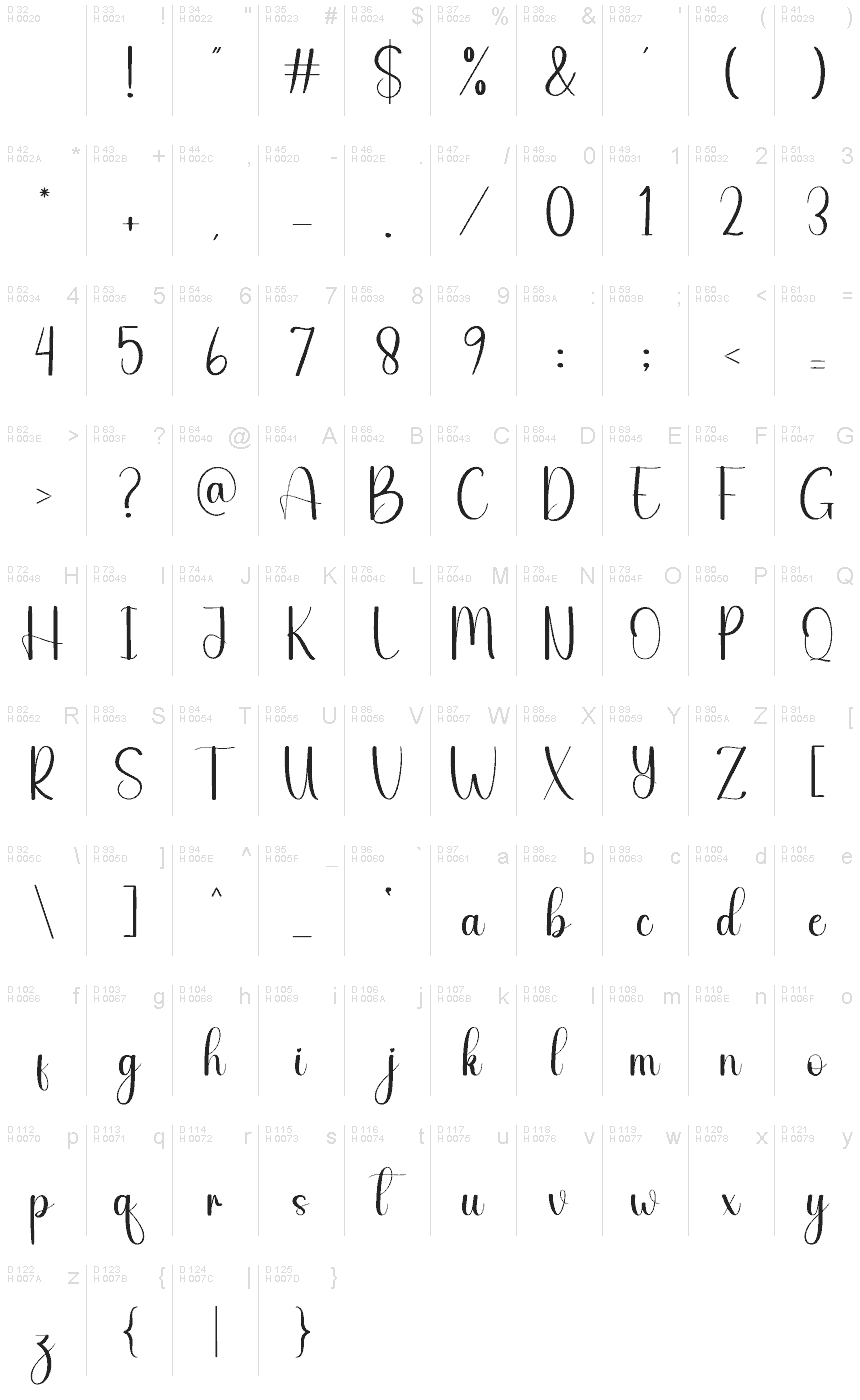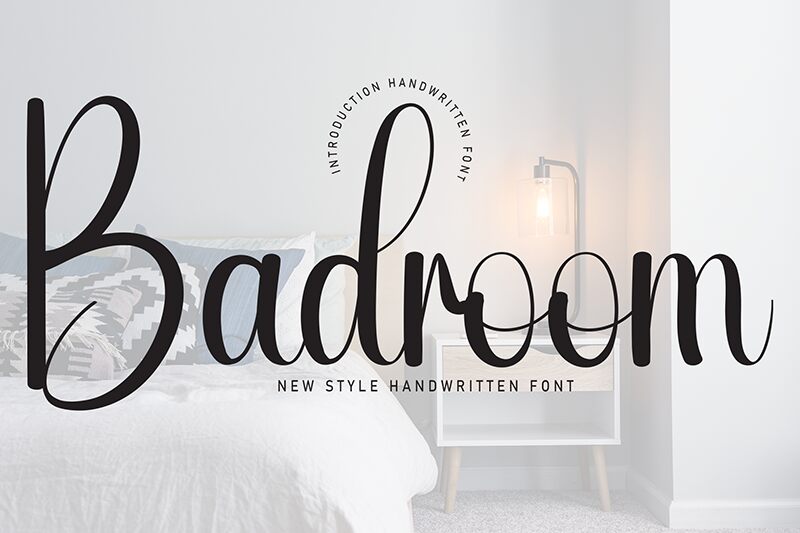
Badroom
Badroom font by Andi Moz is a free calligraphy font distinguished by its elegant and fluid style. Displaying decorative flair with an expressive nature, the modern script font sets itself apart combining elegance, beauty, and a contemporary touch in a highly artistic way.
In need of a combination of every great feature listed above? Use Badroom for cards, invitations, packaging designs. branding projects (logos etc.), social media posts, quotes posters; product headings; apparel design; book covers and more.